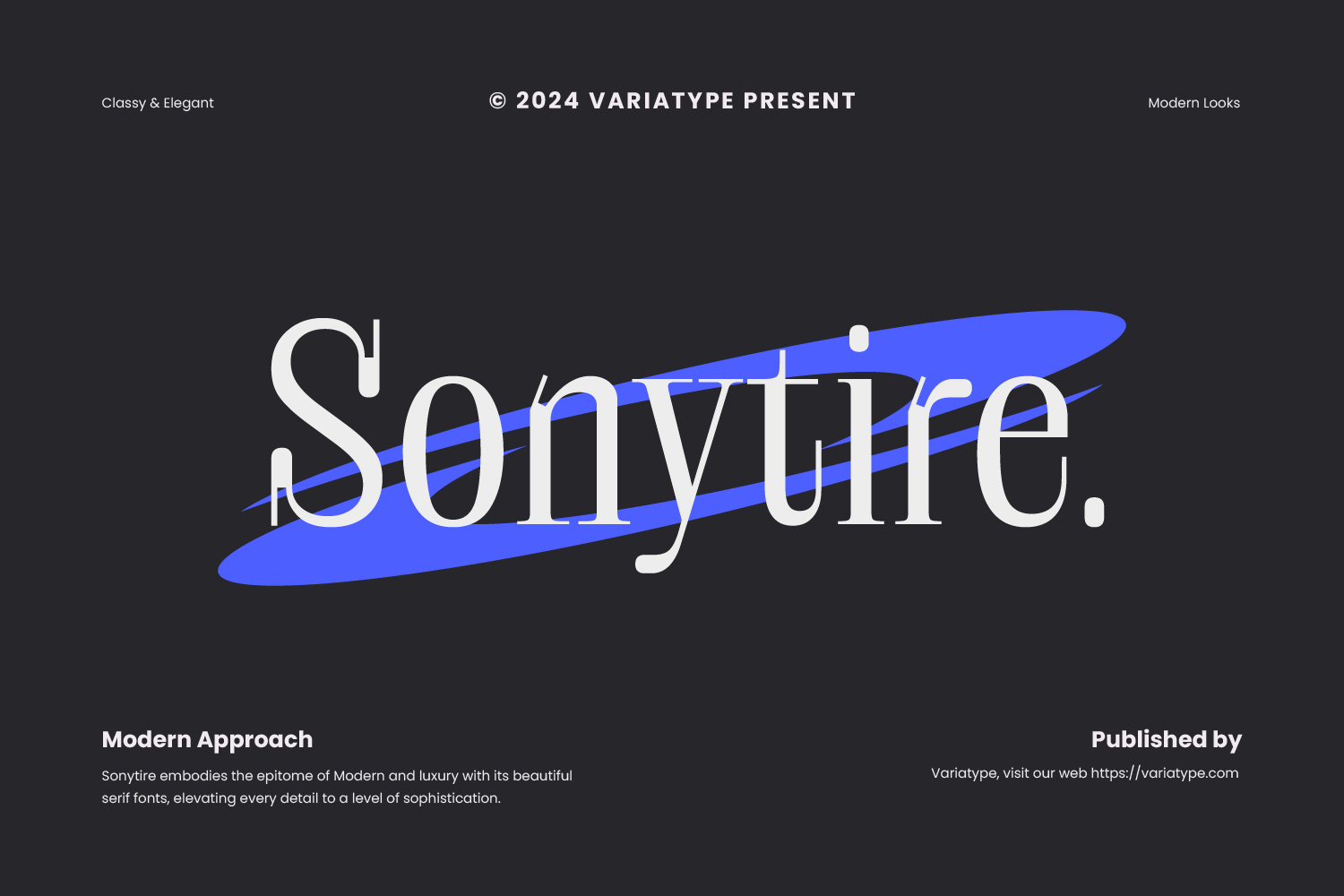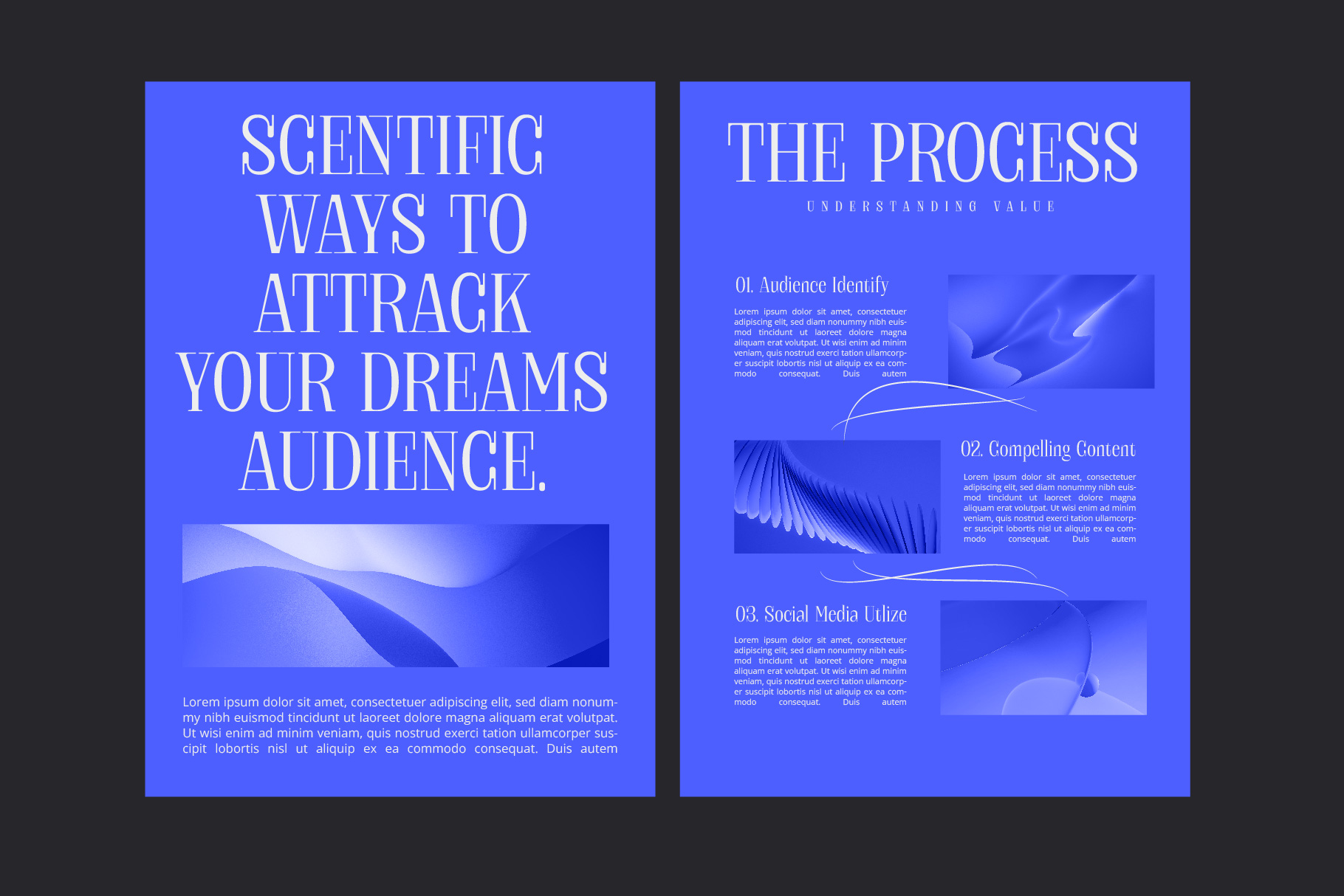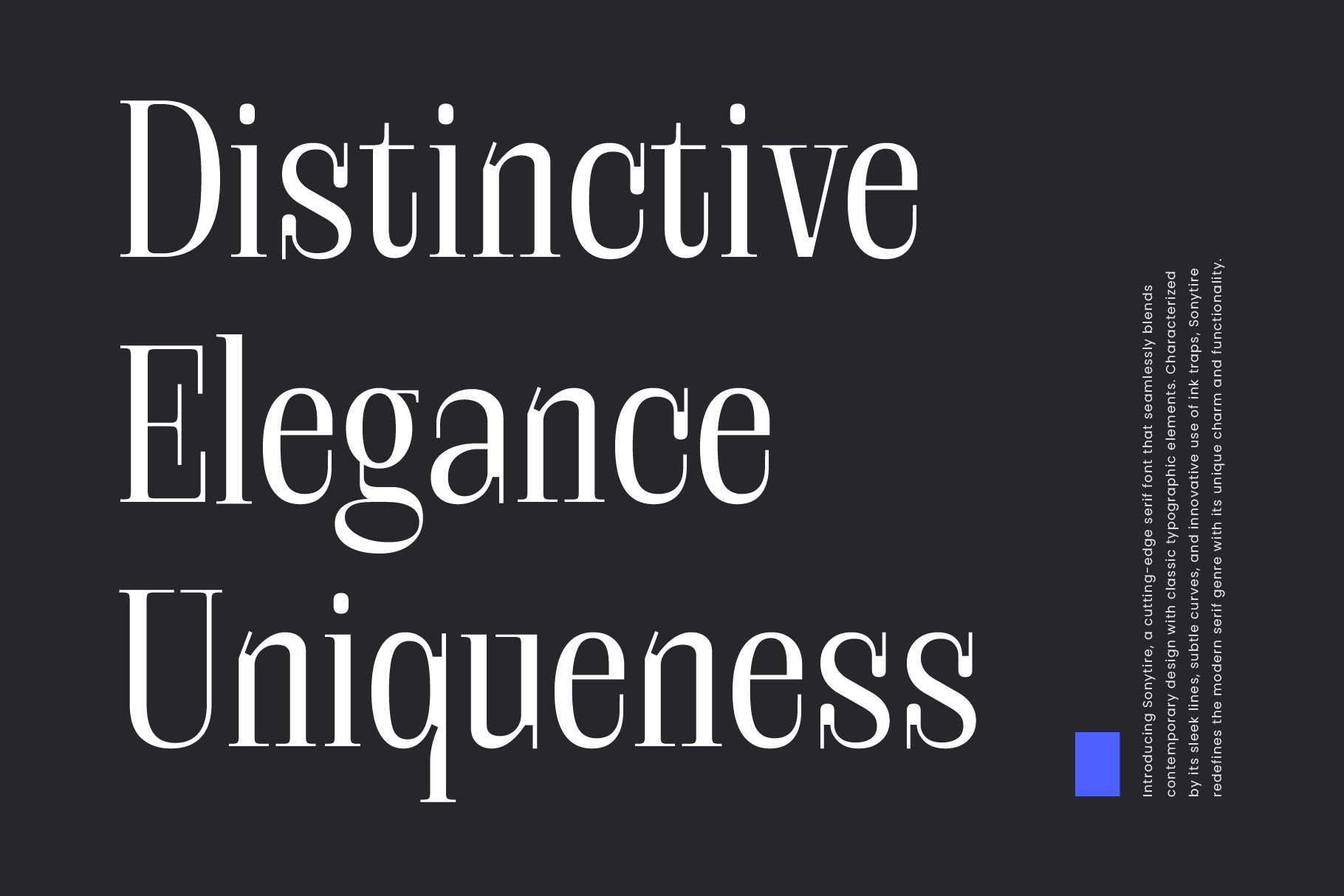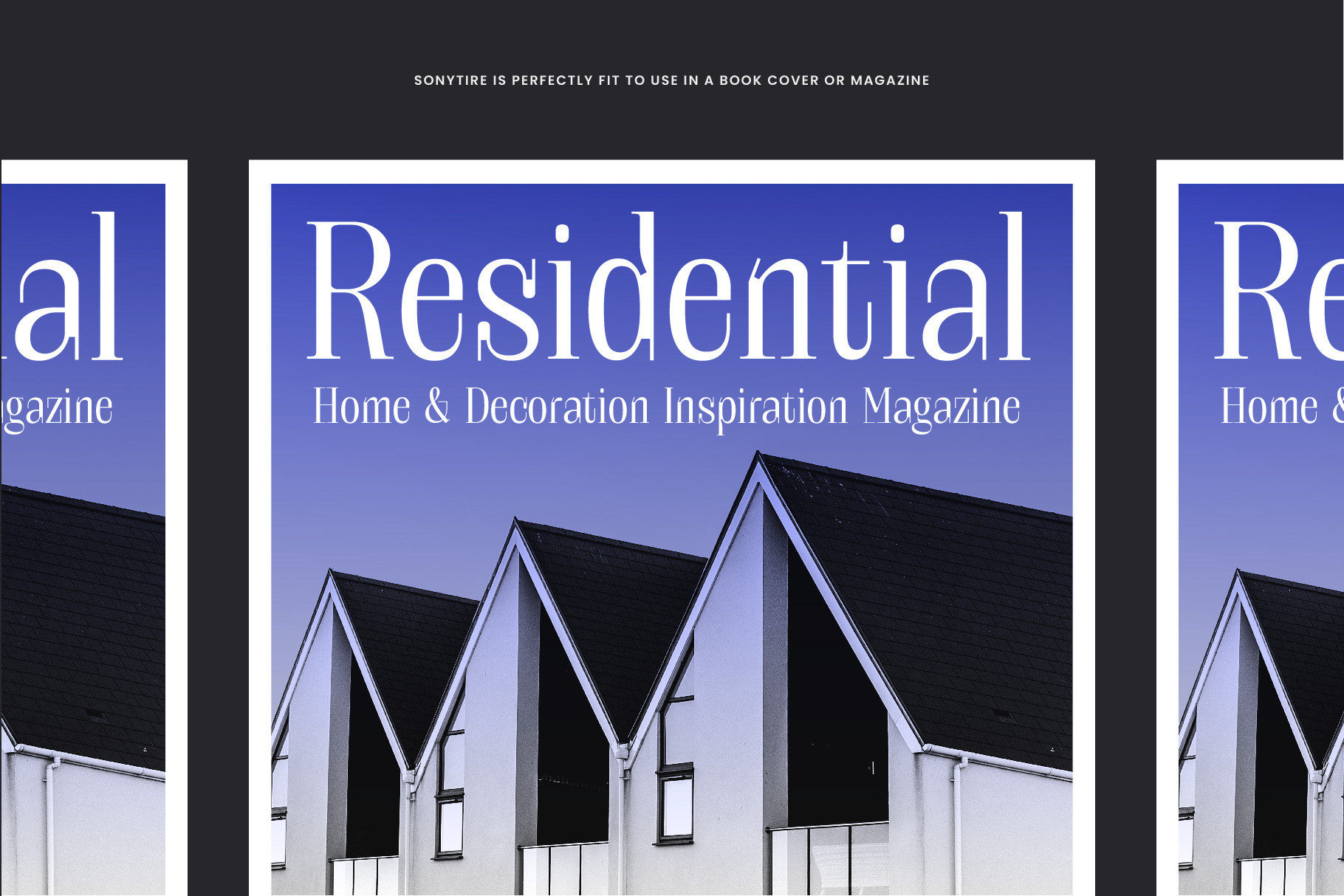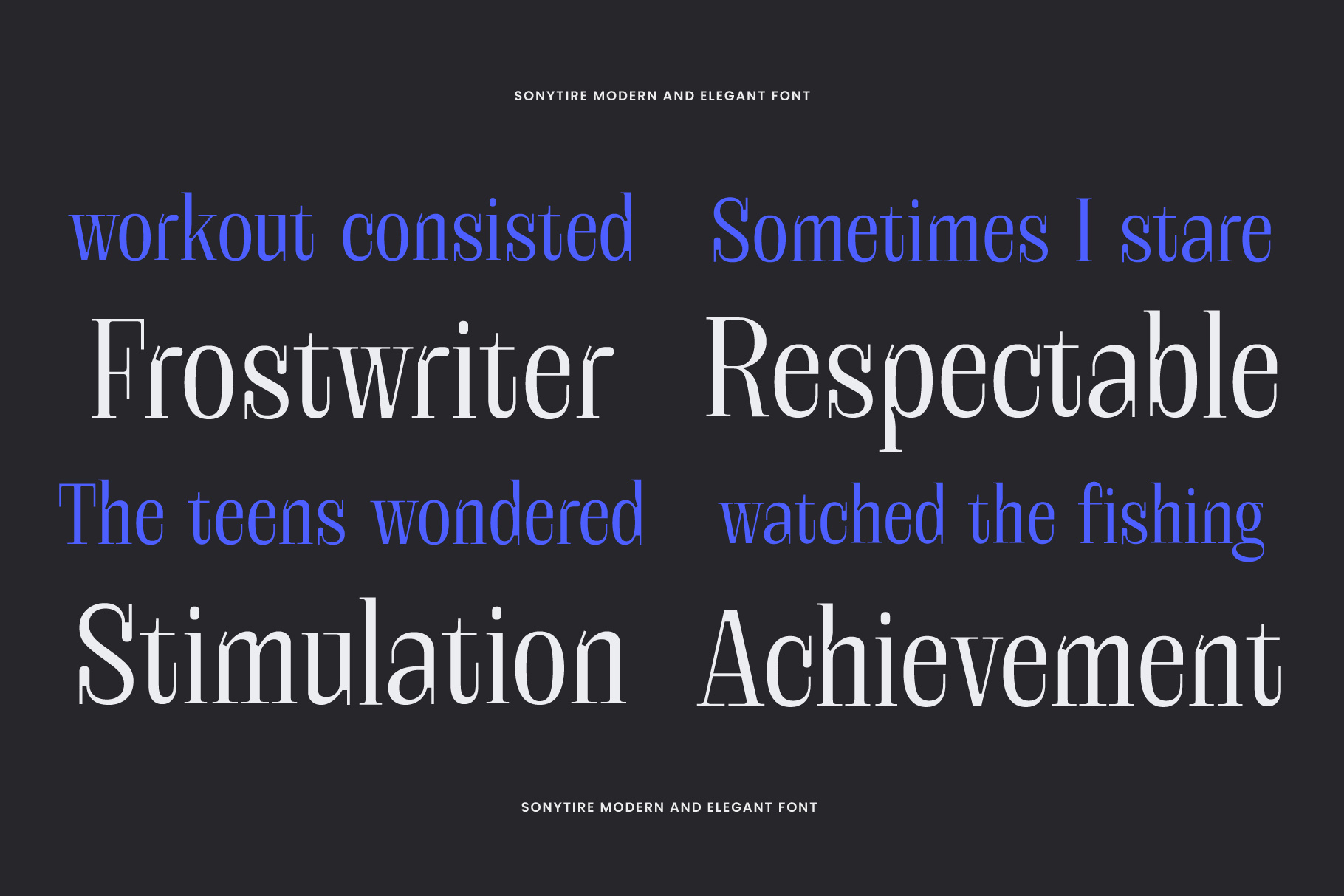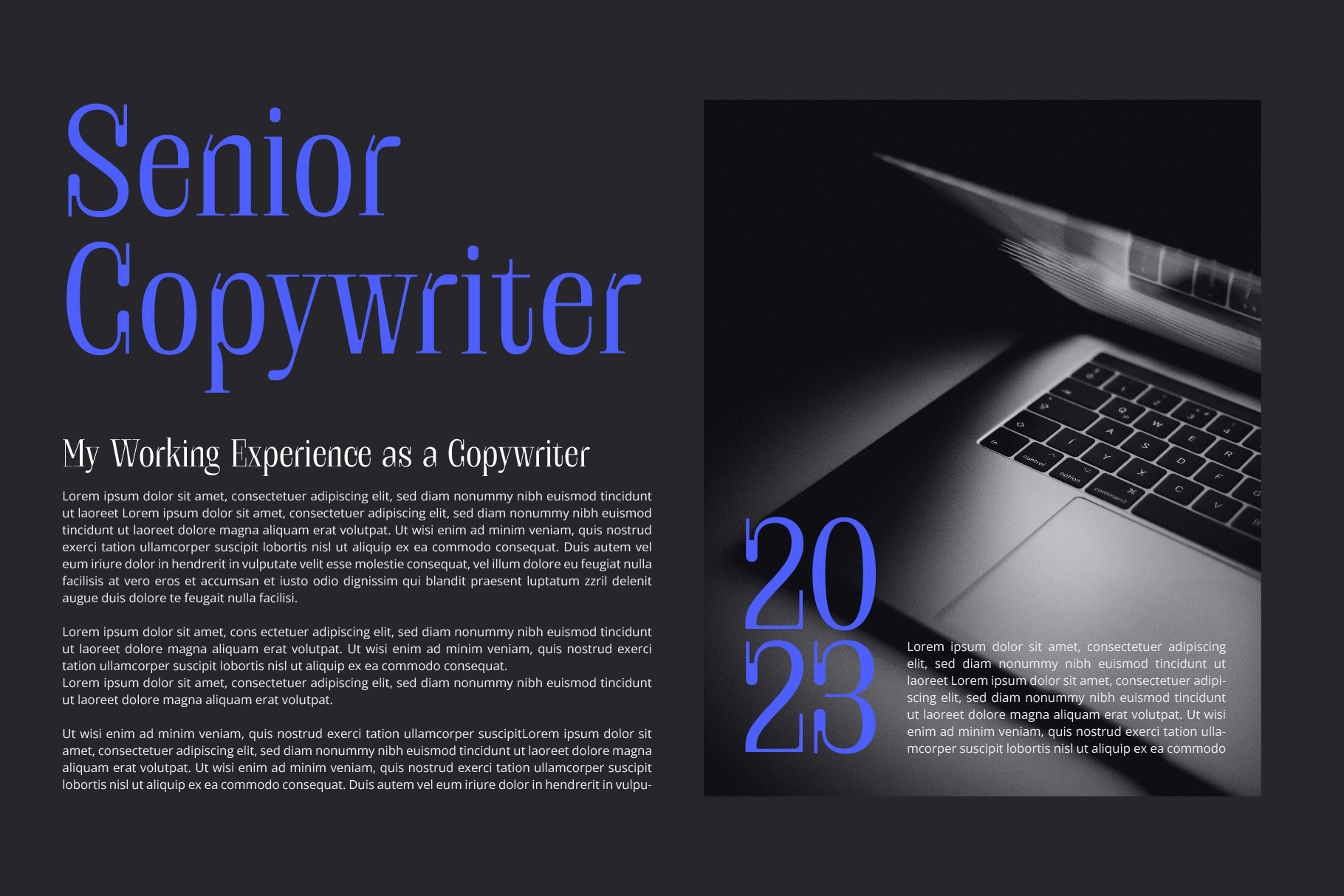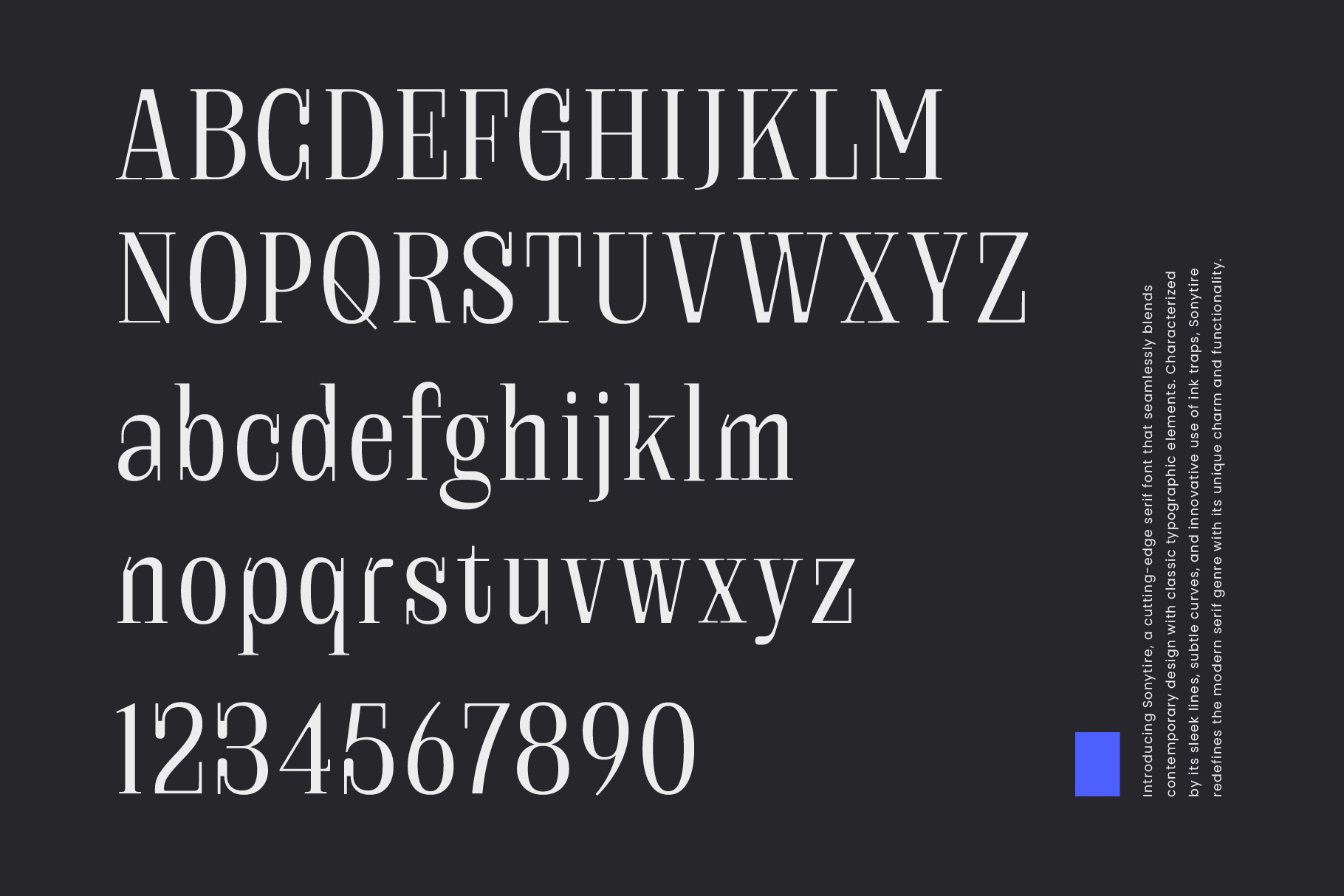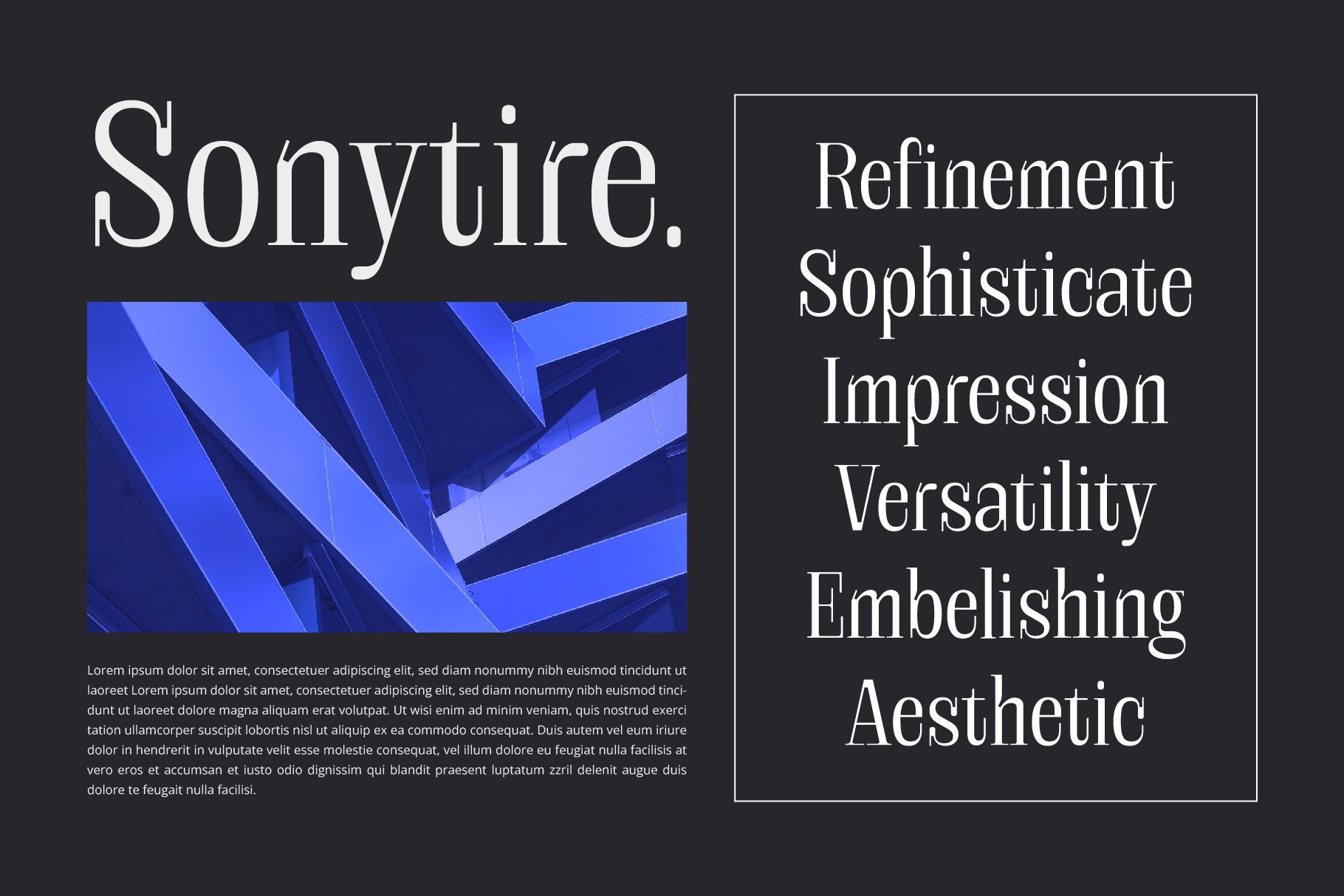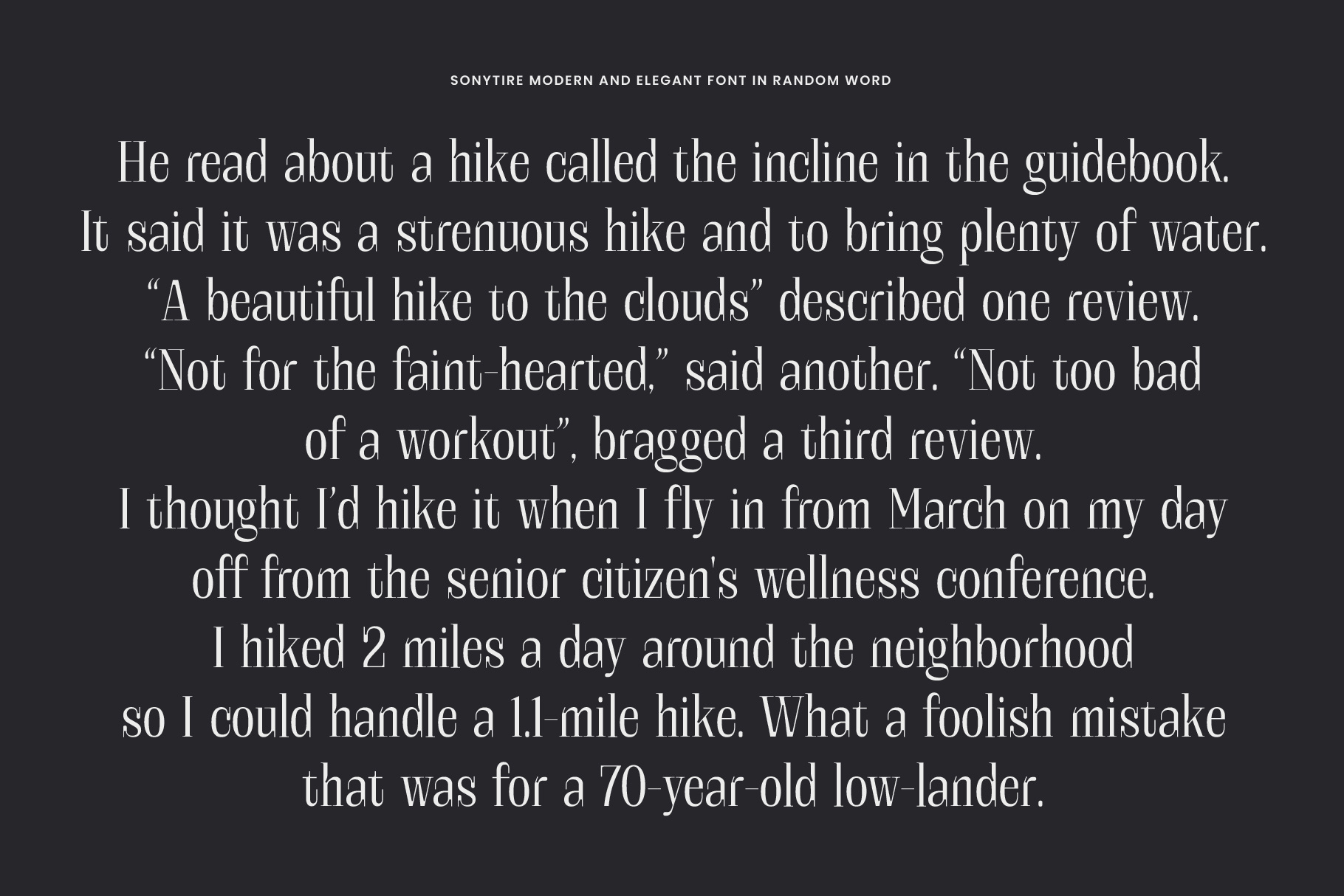
Sonytire
Introducing Sonytire, a cutting-edge serif font that seamlessly blends contemporary design with classic typographic elements. Characterized by its sleek lines, subtle curves, and innovative use of ink traps, Sonytire redefines the modern serif genre with its unique charm and functionality.
- Additional Accents
- 66 Languages
- Kerning